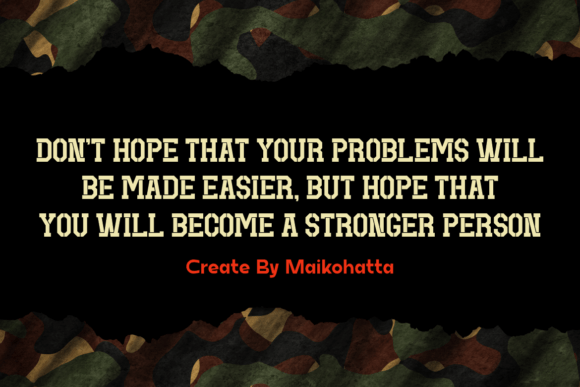
Bandex Font: A Unique Typography Style with Distinctive Cutouts
The Bandex Font is a distinctive typography style that has gained popularity in recent years due to its unique characteristics. This font is characterized by the presence of holes or “cutouts” in each letter and symbol, making it stand out from other font styles. In this article, we will explore the features, uses, and benefits of the Bandex Font, as well as its application in various design contexts.
What is Bandex Font?
Bandex Font is a type of stencil font that features distinctive cutouts or holes in each letter and symbol. Stencil fonts are characterized by the presence of gaps or apertures around the edges of the characters, which gives them a unique and recognizable appearance. The Bandex Font takes this style to the next level with its bold and assertive design, making it perfect for creating messages that require a strong impression.
Key Features of Bandex Font
The Bandex Font has several key features that make it stand out from other font styles. Some of its notable features include:
- Unique cutouts: The presence of holes or cutouts in each letter and symbol gives the Bandex Font its distinctive appearance.
- Bold and assertive design: The font has a robust and characteristic touch that makes it perfect for creating messages that require a strong impression.
- Easy recognition: The cutouts in the font make it easily recognizable, even from a distance.
Uses of Bandex Font
The Bandex Font is versatile and can be used in various design contexts, including:
- Graphic design: The font can be used to create eye-catching graphics, logos, and branding materials.
- Advertising: The bold and assertive design of the font makes it perfect for creating advertisements that require a strong impression.
- Packaging design: The font can be used to create labels, packaging materials, and other product designs that require a unique and recognizable appearance.
- Web design: The font can be used to create website headers, titles, and other design elements that require a bold and assertive touch.
Benefits of Using Bandex Font
The Bandex Font offers several benefits to designers and businesses, including:
- Unique appearance: The font’s distinctive cutouts and bold design make it stand out from other font styles.
- Easy recognition: The font’s unique features make it easily recognizable, even from a distance.
- Versatility: The font can be used in various design contexts, from graphic design to web design.
- Strong impression: The font’s bold and assertive design makes it perfect for creating messages that require a strong impression.
How to Use Bandex Font Effectively
To use the Bandex Font effectively, designers and businesses should consider the following tips:
- Use it sparingly: The font’s bold and assertive design can be overwhelming if used excessively. Use it sparingly to create a strong impression.
- Pair it with complementary fonts: Pair the Bandex Font with complementary fonts to create a harmonious and balanced design.
- Consider the context: Consider the design context and audience when using the Bandex Font. It may not be suitable for all audiences or design contexts.
The Bandex Font is a unique and versatile typography style that offers a range of benefits to designers and businesses. Its distinctive cutouts and bold design make it perfect for creating messages that require a strong impression. By understanding its features, uses, and benefits, designers and businesses can use the Bandex Font effectively to create eye-catching designs that stand out from the crowd.
- What is Bandex Font? The Bandex Font is a type of stencil font that features distinctive cutouts or holes in each letter and symbol.
- What are the key features of Bandex Font? The font’s key features include its unique cutouts, bold and assertive design, and easy recognition.
- What are the uses of Bandex Font? The font can be used in various design contexts, including graphic design, advertising, packaging design, and web design.